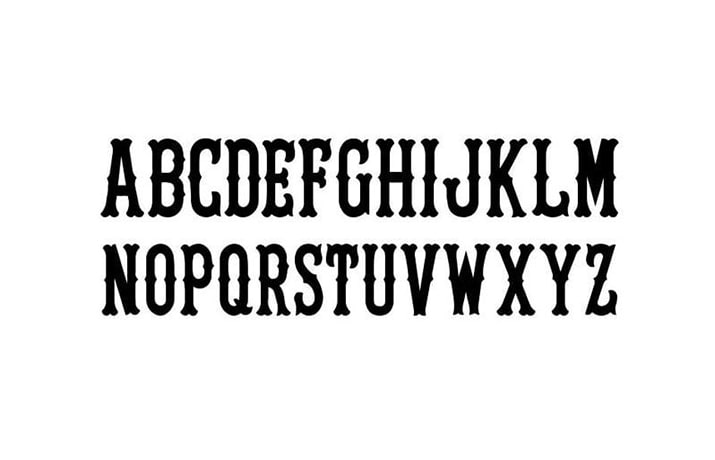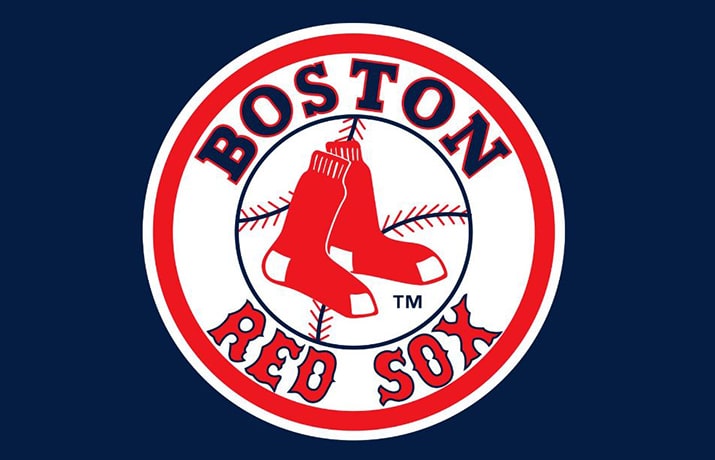
Today we are presenting a logo typeface called Red Sox Font. It is an American professional baseball team based in Boston.
This super cool font family comes with 5 unique styles and each style has 75 characters. These font styles offer their own unique look.